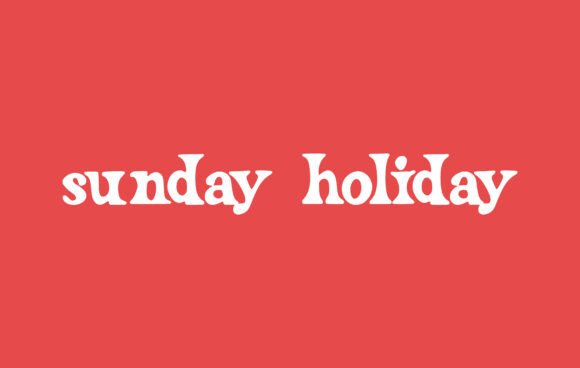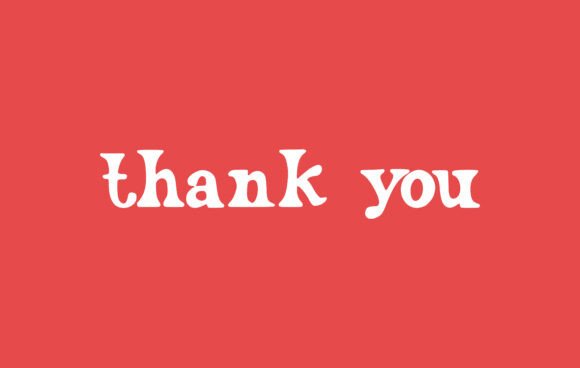
Introduction to Fairy Font
Fairy font is an authentic handwritten font with a romantic touch.
Key Features of Fairy Font
Why Choose Fairy Font?
Fairy Font offers exceptional quality and versatility, making it a valuable addition to your design toolkit. Whether you’re creating for personal projects or commercial use, Fairy Font delivers professional results.